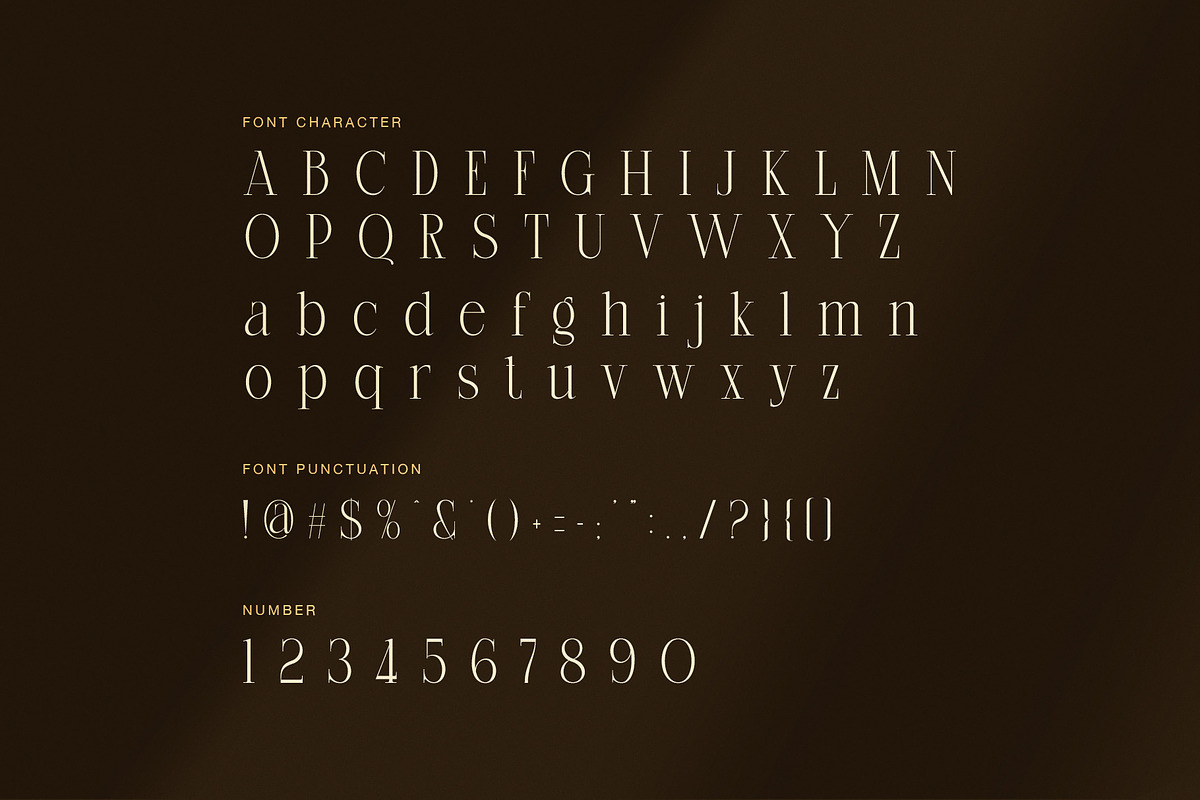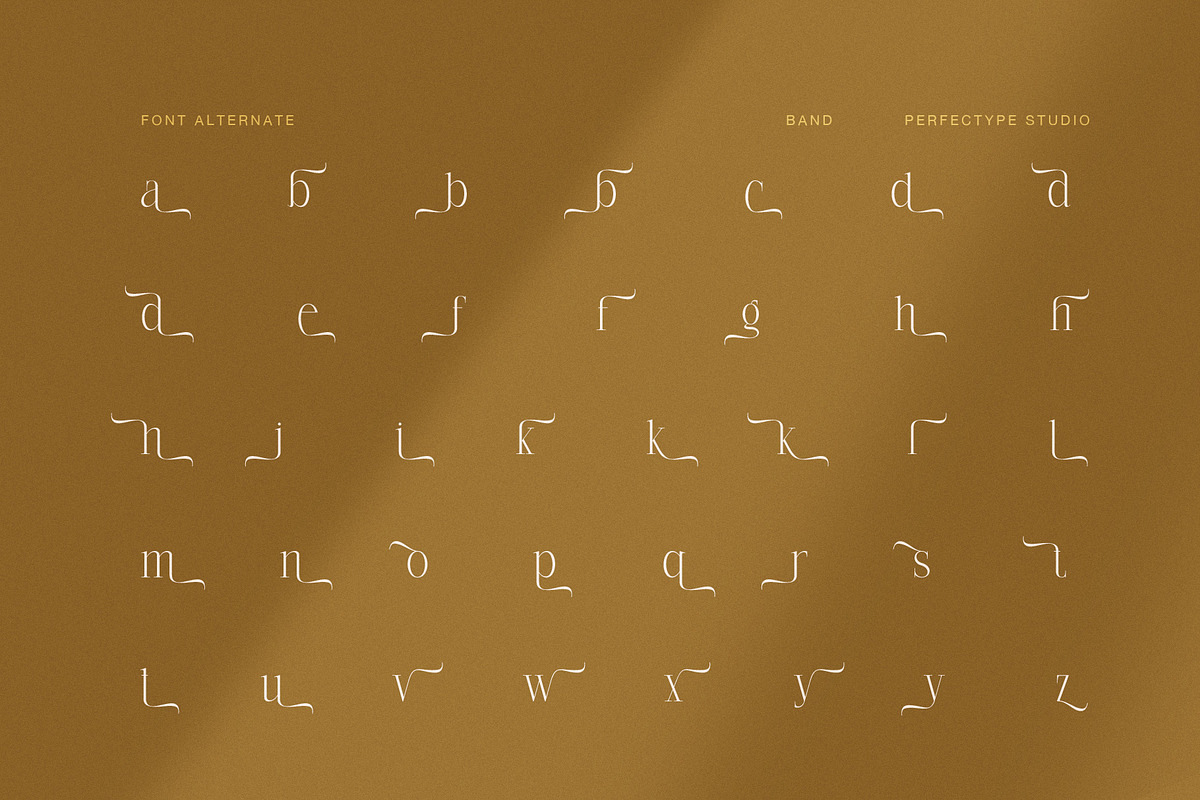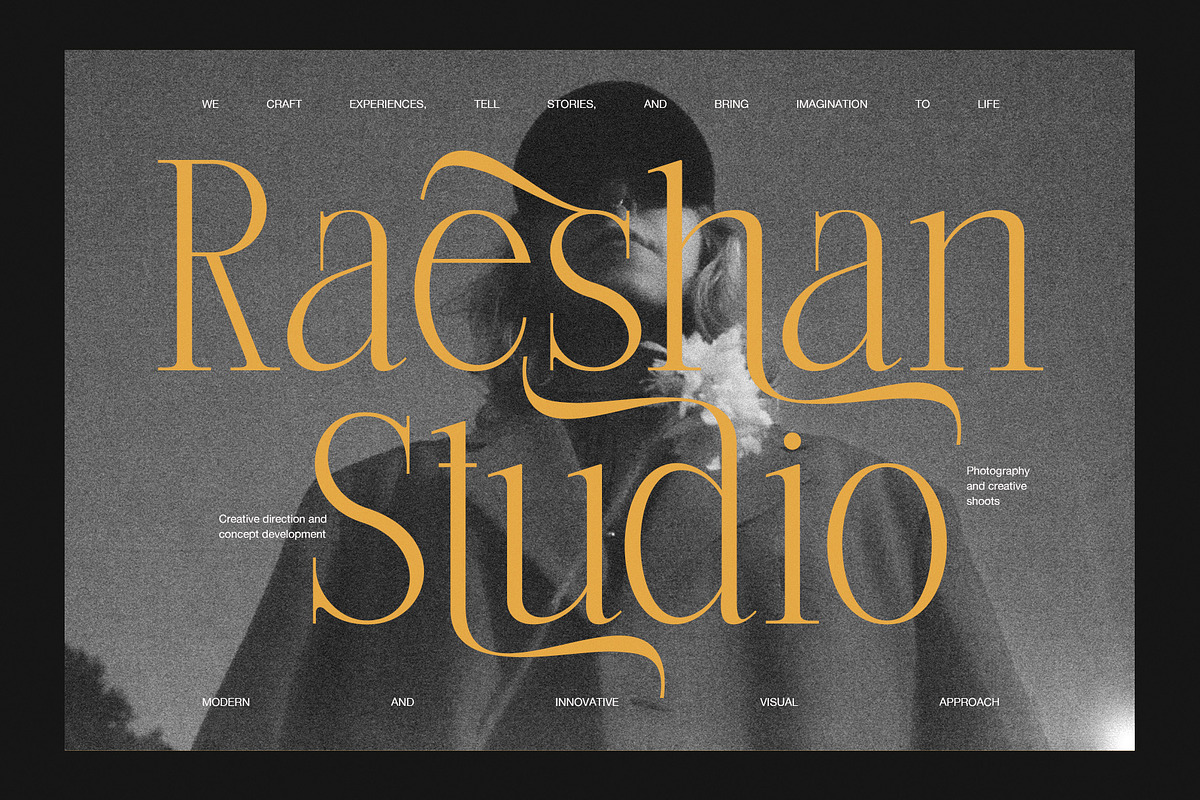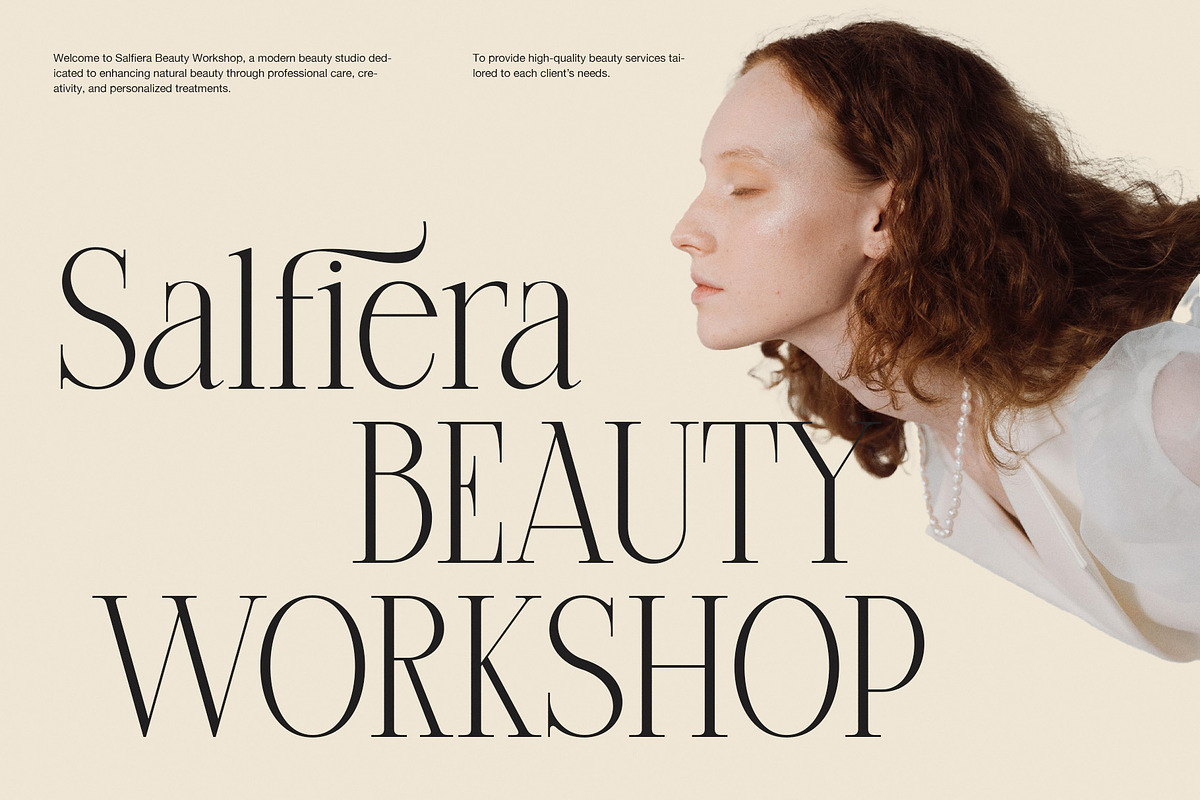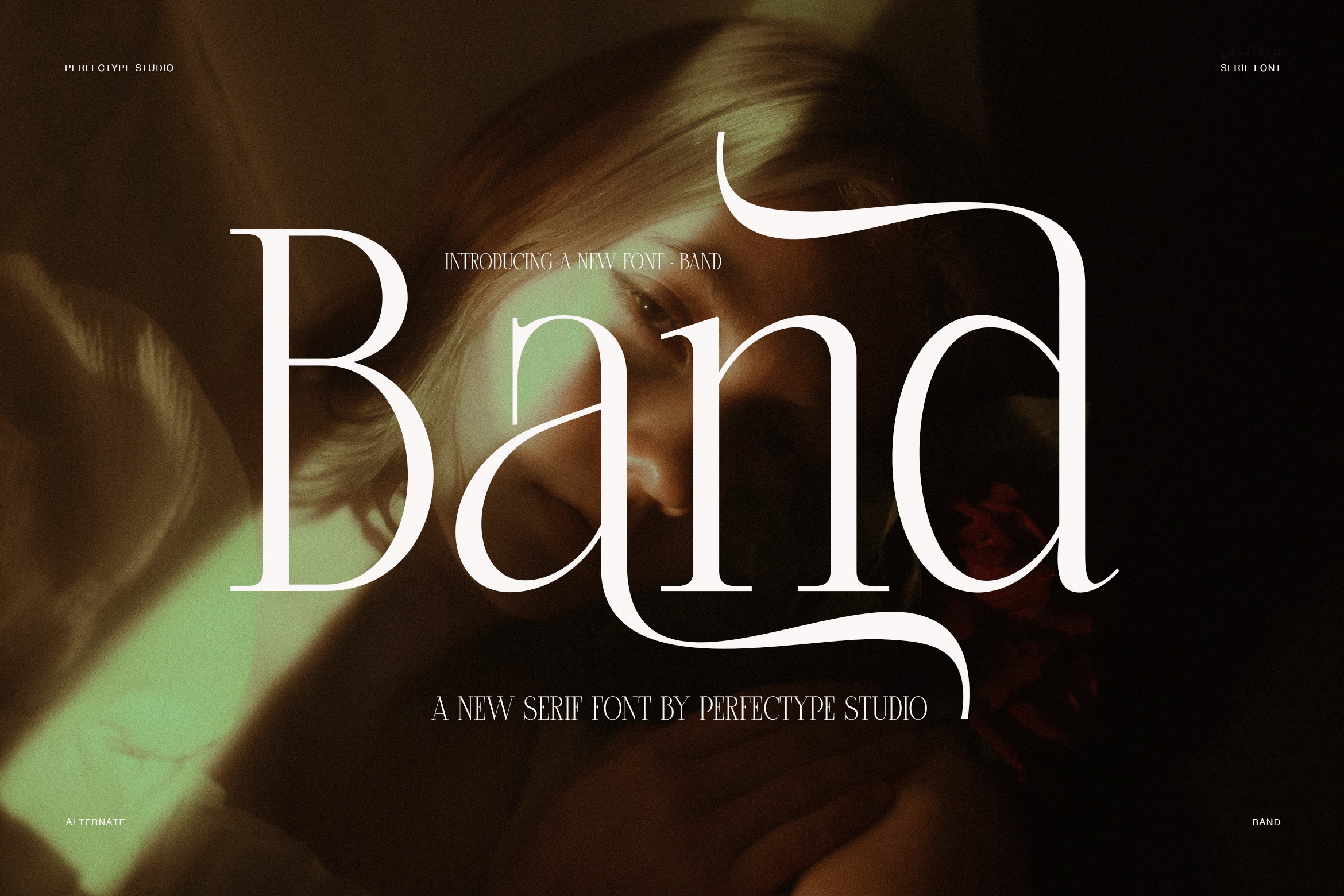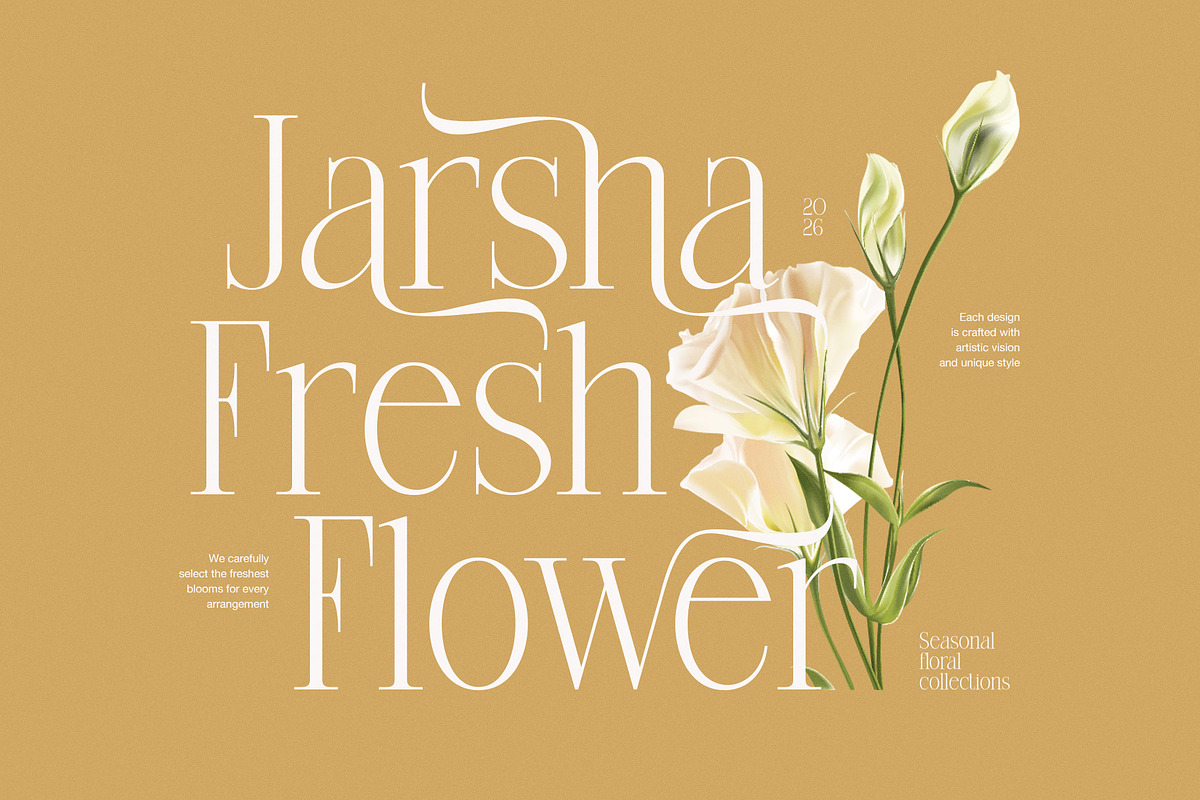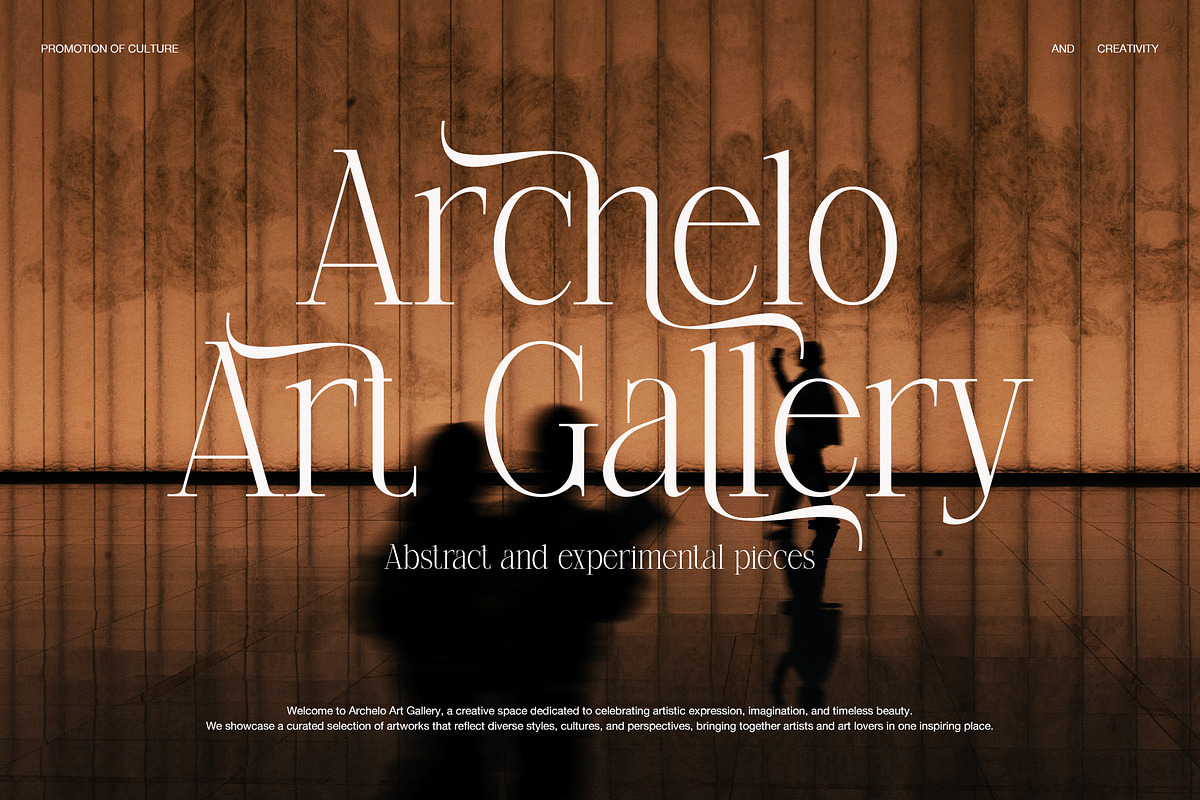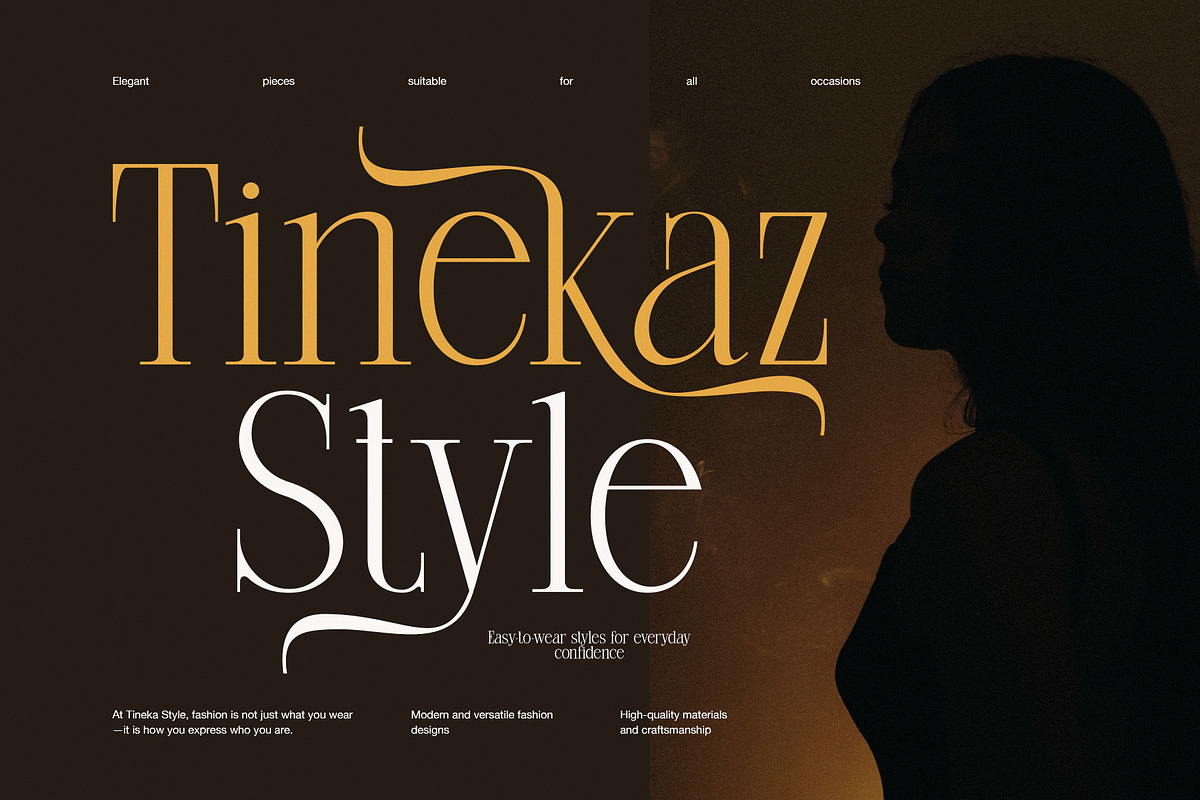
Band Elegant Swash Serif Font
Band is an elegant swash serif font made for designers who want a refined look with a bold sense of style. Its tall letterforms, strong contrast, and fine hairlines create a polished fashion feel. At the same time, the smooth curves keep the design soft and graceful.
The most striking feature is its decorative swash style. Several lowercase characters include extended alternate forms that sweep above or below the word. Therefore, you can turn a simple headline into a more expressive display. These alternates work especially well for logos, names, short phrases, and large editorial titles.
Band also has a clean serif structure beneath its decorative details. As a result, the font can move from classic to artistic without losing its elegant character. Its uppercase letters give branding projects a strong presence, while the lowercase set adds a more personal and stylish rhythm. Moreover, the thin strokes look beautiful when used at large sizes.
Band is ideal for:
Fashion logos and clothing brands
Luxury and beauty branding
Editorial magazines and covers
Wedding invitations and stationery
Boutique packaging and labels
Perfume and cosmetic designs
Photography and creative studios
Restaurant menus and premium brands
Social media graphics and campaigns
Posters, titles, and display artwork
In addition, Band includes uppercase and lowercase characters, numbers, punctuation, and a wide selection of decorative alternate letters. The alternate set gives you more freedom to shape each word. Consequently, you can create a logo or headline that feels less ordinary and more custom.
Band is especially useful when typography needs to become part of the visual identity. For example, a single swash can add movement to a fashion logo, while a carefully chosen alternate can give a wedding name a graceful finish. Similarly, the high-contrast serif forms can bring a premium mood to packaging and editorial layouts.
Overall, Band is a versatile choice for modern designers who need an elegant serif font with distinctive swashes and refined details. It combines fashion, beauty, luxury, and creative expression in one display typeface. Therefore, it is a strong choice for projects that need typography to feel memorable, stylish, and carefully crafted.